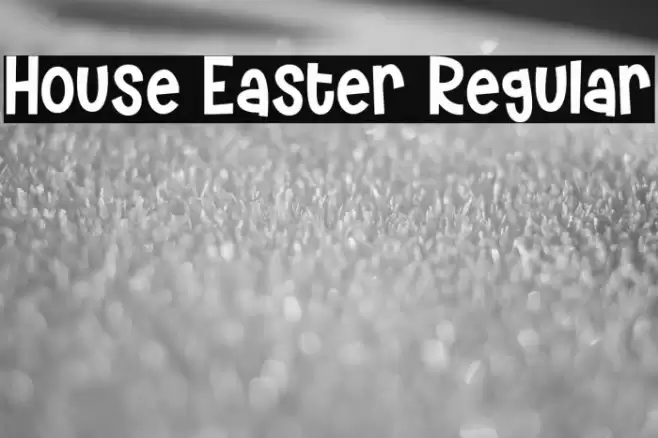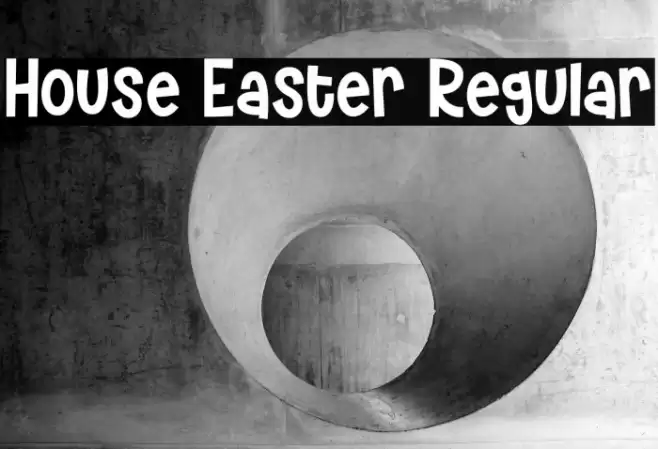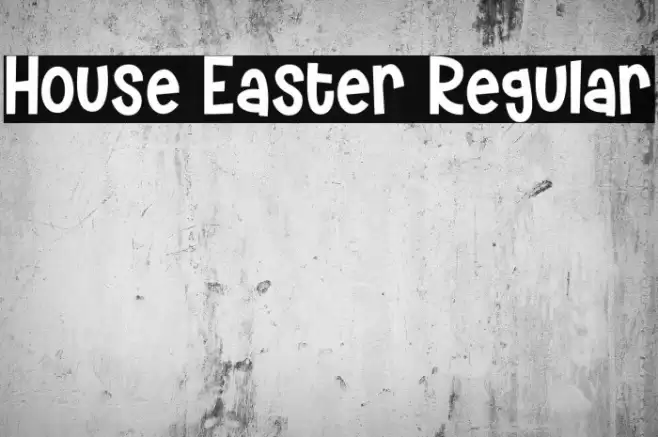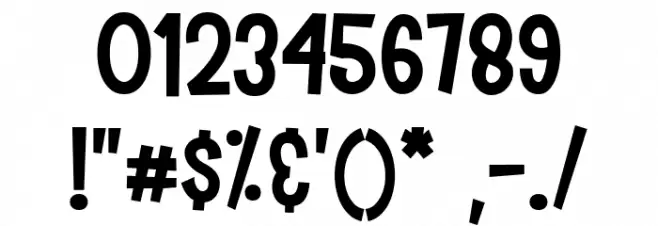
House Easter Regular Font
House Easter Regular Description
This playful and whimsical font features bold, rounded characters with a slightly irregular baseline, giving it a hand-drawn, casual feel. The uppercase letters are tall and narrow, while the lowercase letters have a charming, bouncy quality. The numbers and special characters maintain the same playful style, making this font ideal for creative and fun projects. Its unique character shapes and friendly appearance make it stand out, adding a touch of personality and warmth to any design.
A playful, hand-drawn style font with bold, rounded characters from Cartoon fonts.
- Proposed Projects: Ideal for children's books, greeting cards, playful branding, and creative posters.
- Overall Style: Playful, Whimsical